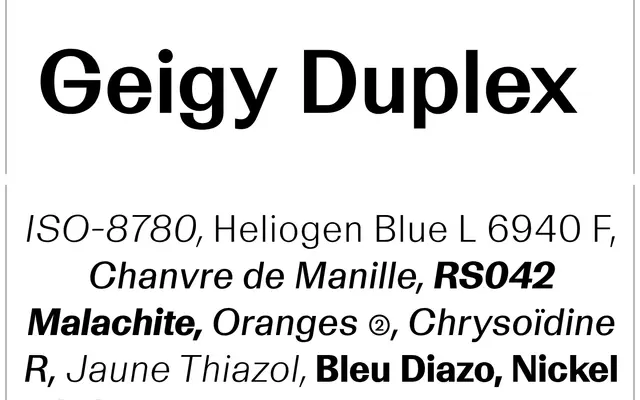
LL Geigy Duplex
A uniwidth variable grotesque derived from LL Geigy, engineered so that every glyph occupies identical space across all weights and styles, eliminating text reflow when switching between them.
Designed by Robert Huber, LL Geigy Duplex applies the duplex model — a principle from hot-metal typesetting — to a contemporary variable font spanning Light to Black with matching italics. Because spacing and kerning values are fixed across the entire weight and style range, designers can switch weights or animate between them without any layout shift. This makes it particularly suited to screen interfaces where buttons, labels or running text need to transition between weights without redrawing surrounding content.
A uniwidth variable grotesque derived from LL Geigy, sharing its industrial Swiss heritage and sans-serif structure across a full weight range with matching italics.